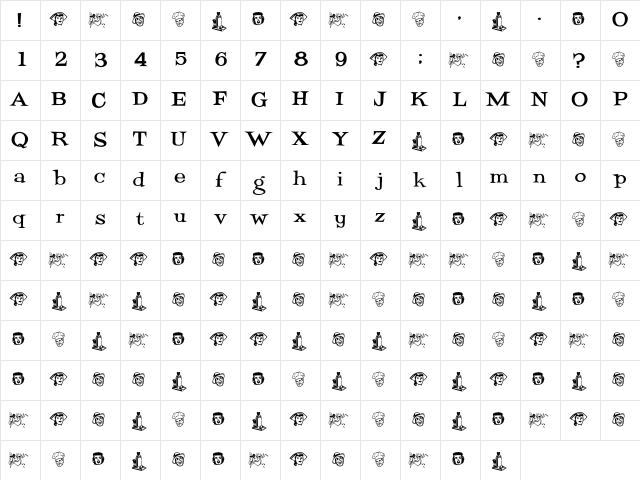
Potrzebie Regular Free Font
Potrzebie Regular
Complete Potrzebie Regular glyph index. Displaying only characters natively supported by Potrzebie Regular font.
Design Context for Potrzebie
Potrzebie is a composed and adaptable typeface that performs quietly and consistently across a wide range of design contexts.